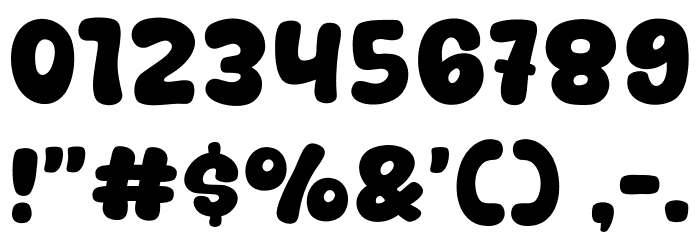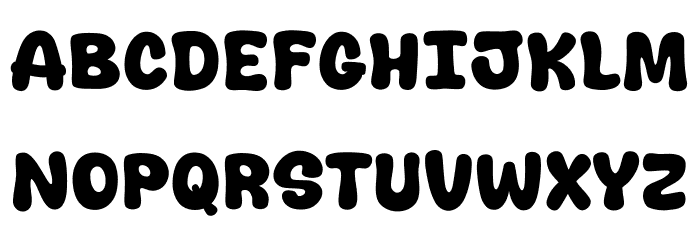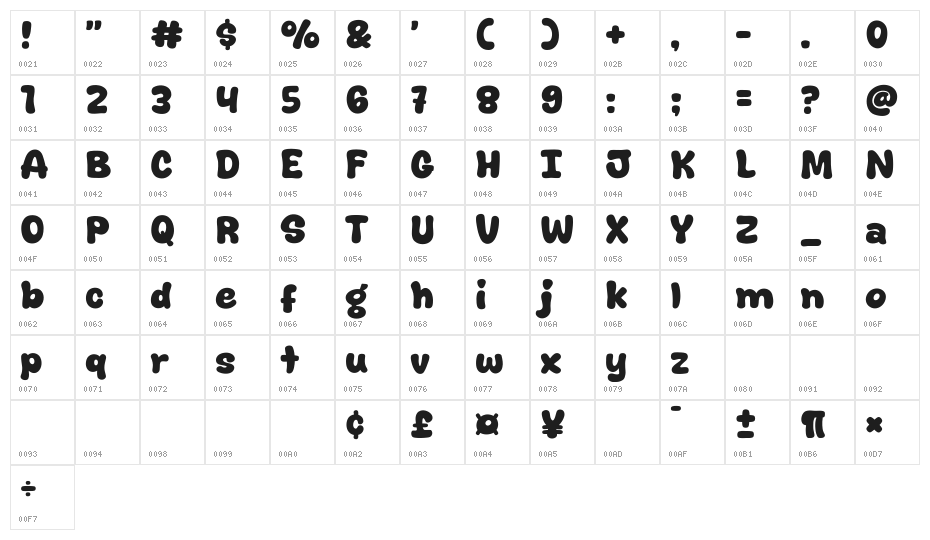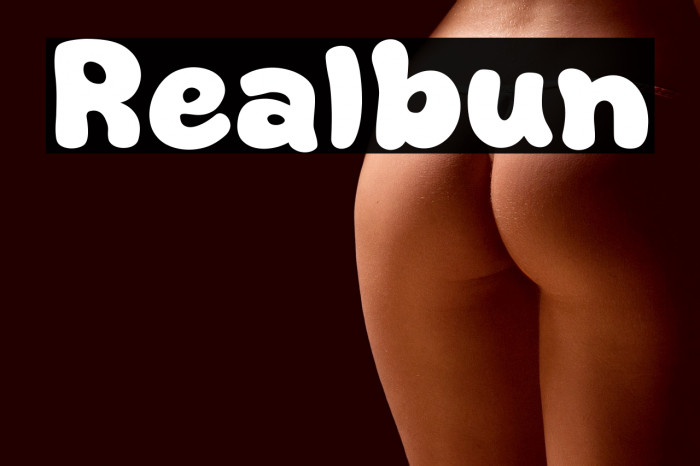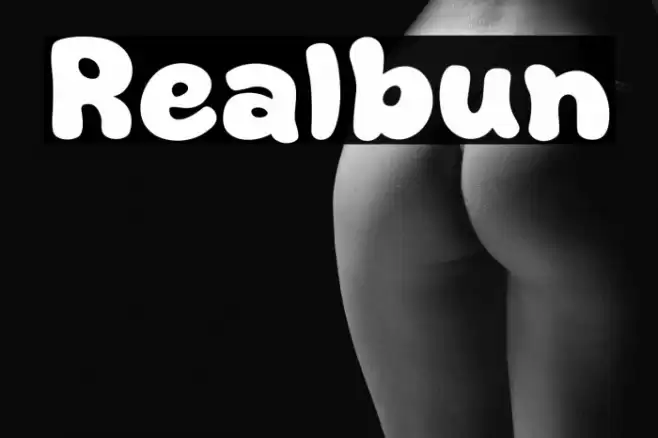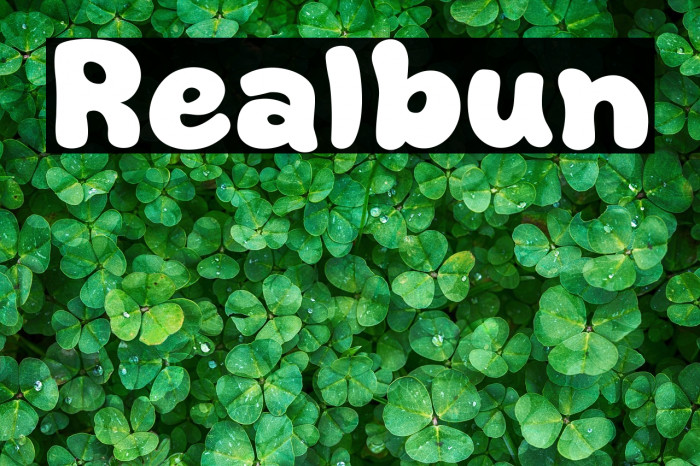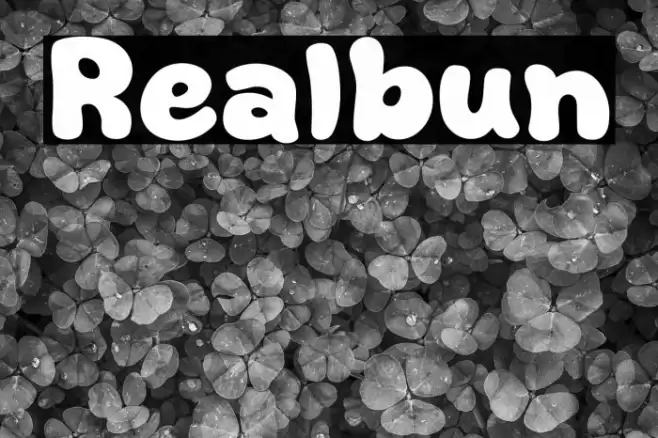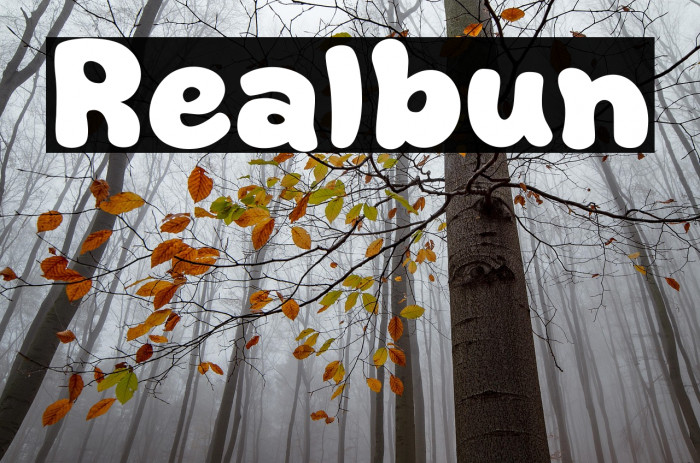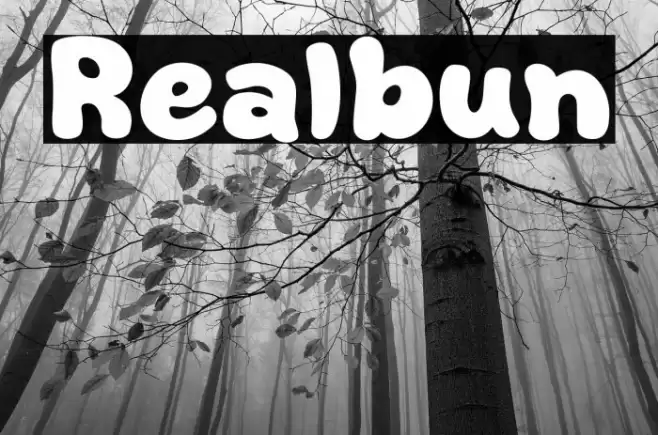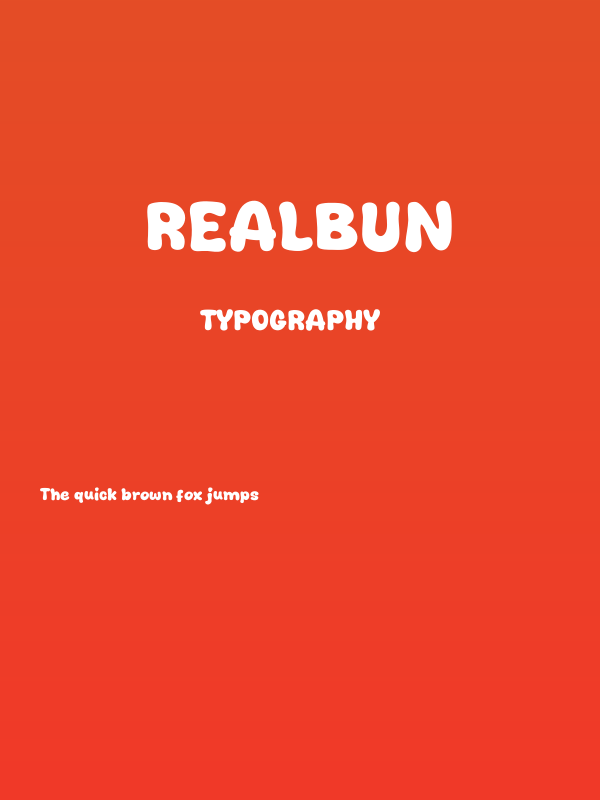
Realbun Font
Realbun Description
This font features a playful and bold style with rounded, bubbly characters that convey a sense of fun and approachability. Each letter is crafted with a consistent thickness, giving it a uniform appearance. The characters are slightly condensed, enhancing their compact and cohesive look. The font's whimsical nature makes it ideal for projects that aim to capture attention and convey a lighthearted tone. Its smooth curves and lack of sharp edges contribute to its friendly and inviting aesthetic.
| Width | Condensed |
| Overall Style | Playful |
| Use Case | Headlines, Logos |
| Proposed Projects | Ideal for children's books, playful branding, party invitations, and casual social media graphics. |